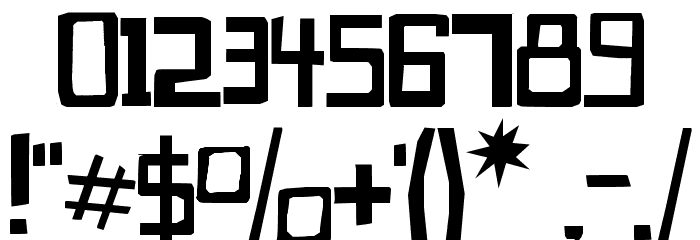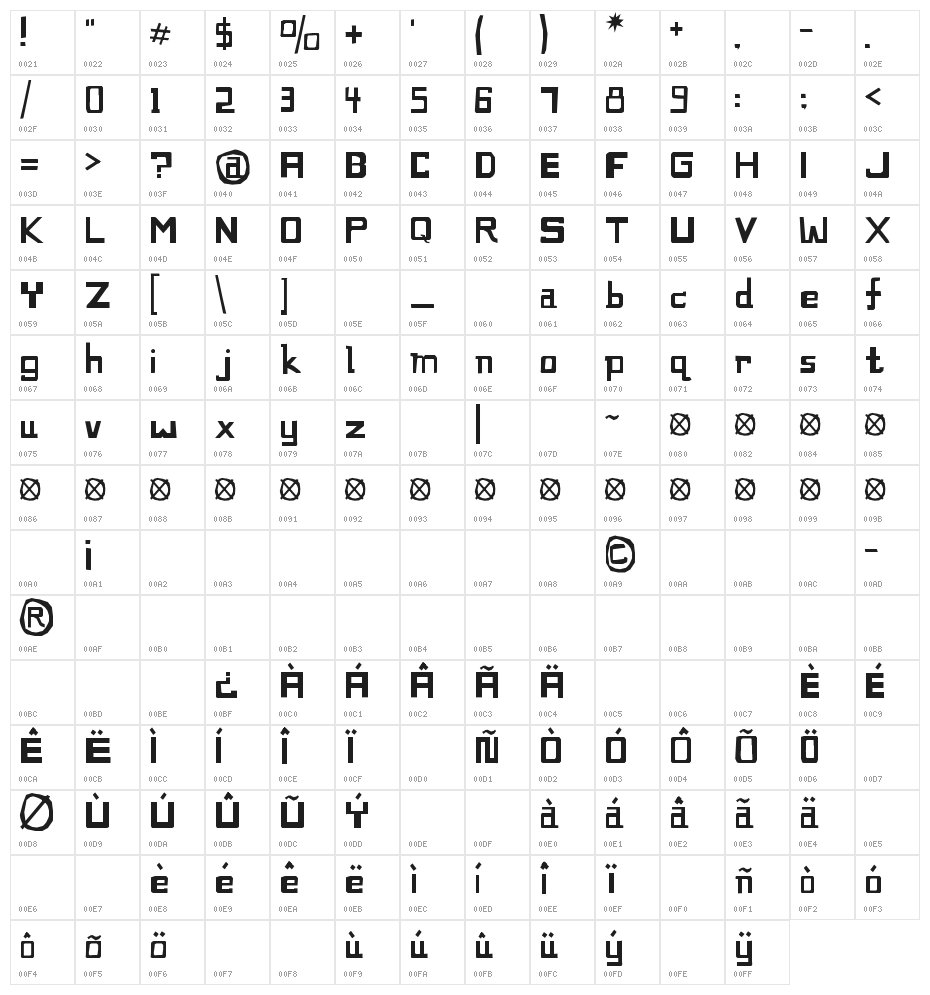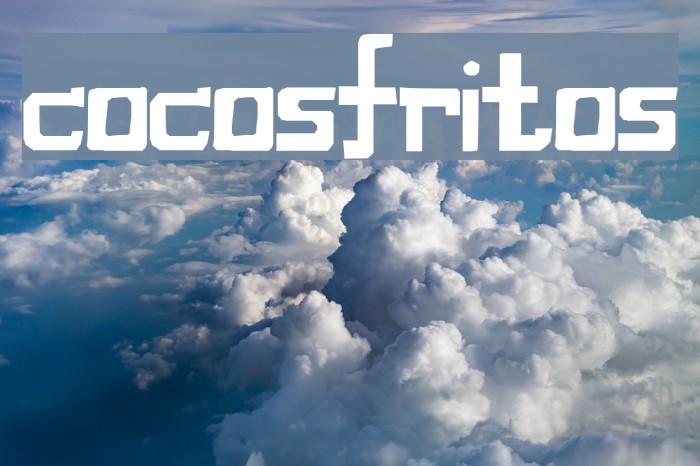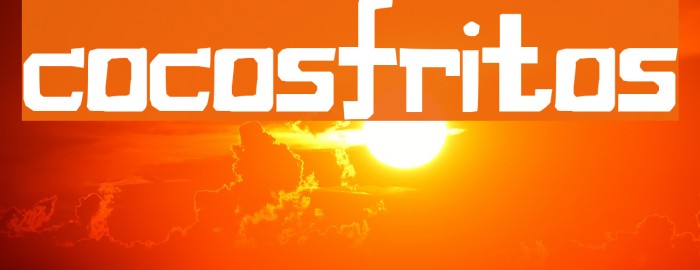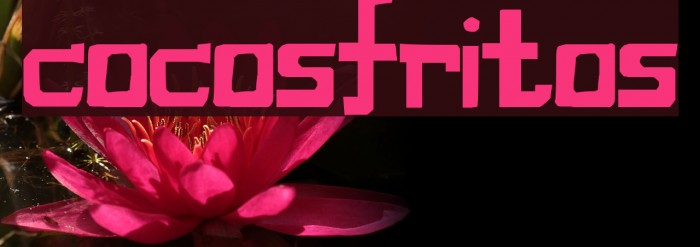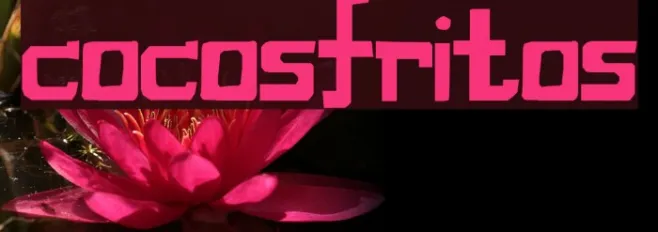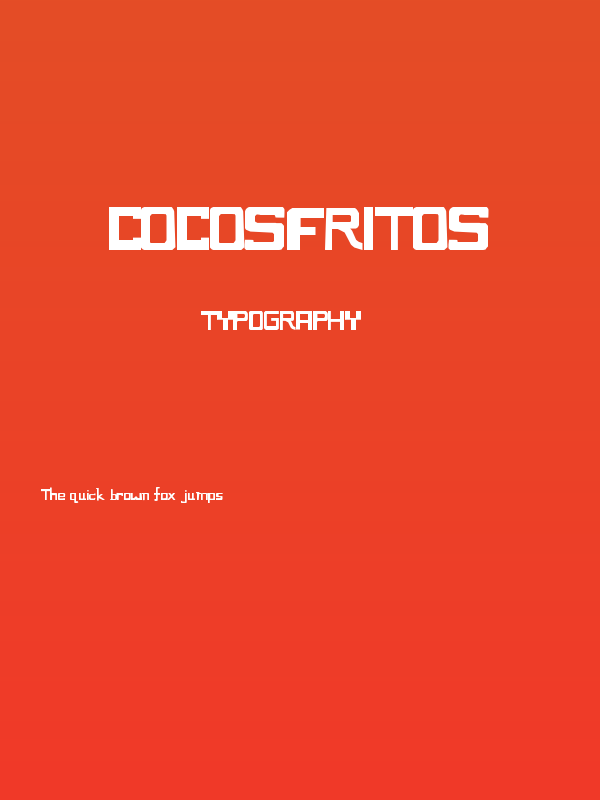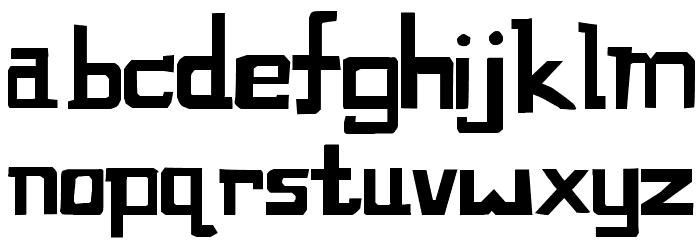
cocosfritos Font
cocosfritos Description
This font features a bold and geometric design with a distinct block-like appearance. The uppercase letters are characterized by their strong, angular lines and uniform thickness, giving them a modern and industrial feel. The lowercase letters maintain the same geometric style but with slightly softer curves, providing a balanced contrast. Numbers and special characters follow the same design principles, ensuring consistency throughout. The font's overall aesthetic is striking and attention-grabbing, making it ideal for projects that require a bold statement.
| Proposed Projects | Ideal for branding, posters, headlines, and any design requiring a strong visual impact. |